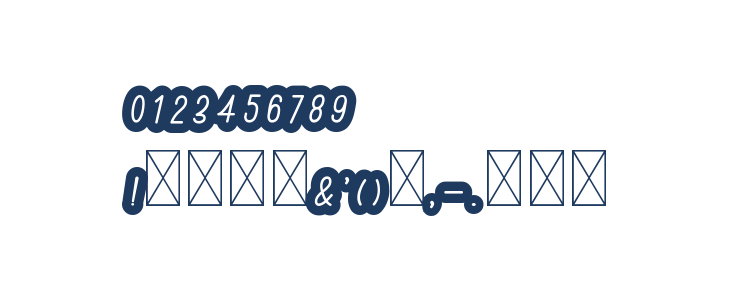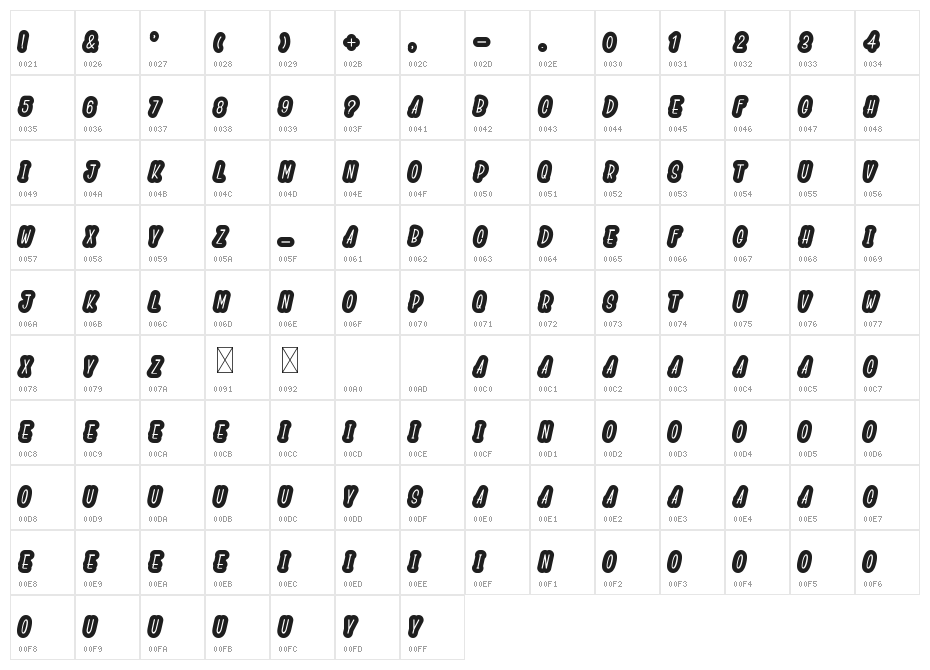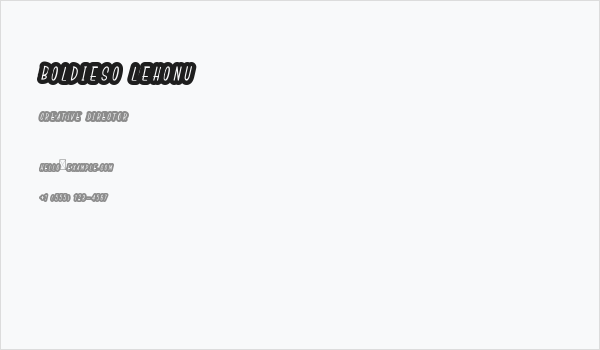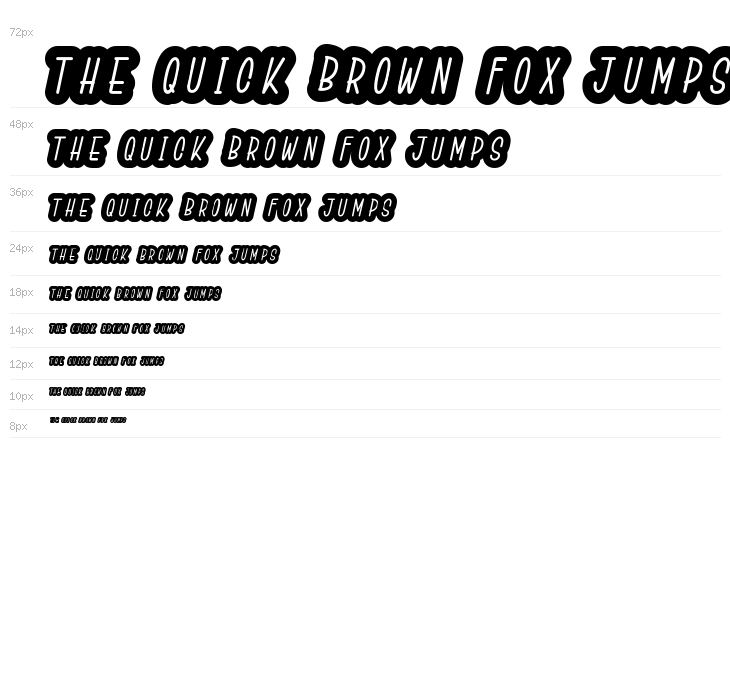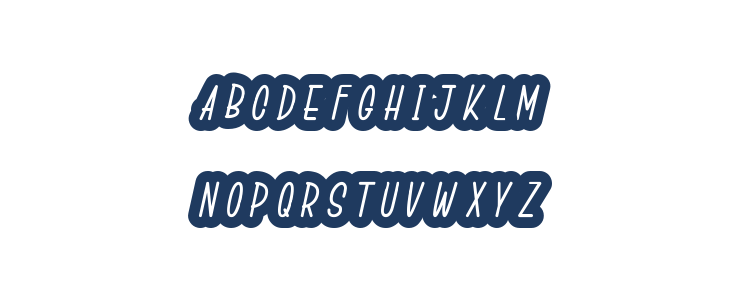
Boldieso Lehonu Font
Boldieso Lehonu Description
This font features a bold and playful style with a strong emphasis on rounded edges and a thick outline that gives it a cartoonish appearance. The uppercase and lowercase letters maintain a consistent flow, with each character exhibiting a slight slant that adds a dynamic feel. The numbers and special characters are designed to match the overall aesthetic, ensuring a cohesive look across all elements. The font's boldness and unique style make it stand out, making it ideal for projects that require a fun and engaging visual impact.
| Overall Style | Playful, Cartoonish |
| Proposed Projects | Ideal for children's books, comic strips, playful branding, and eye-catching headlines. |